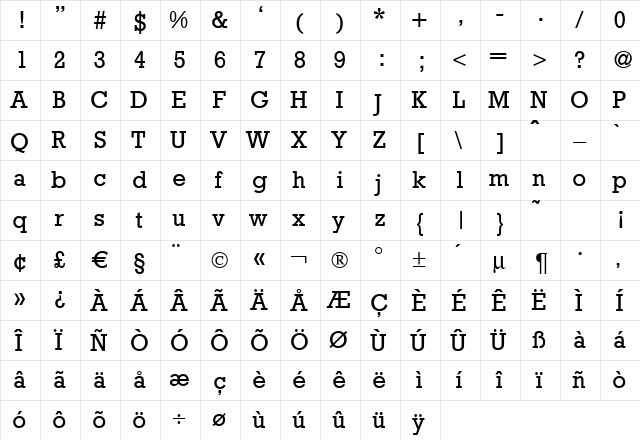
Rambault Regular
Design Context for Rambault Typeface
Rambault takes a measured approach to typography — its balanced proportions and neutral character make it a reliable workhorse for both digital and print work.